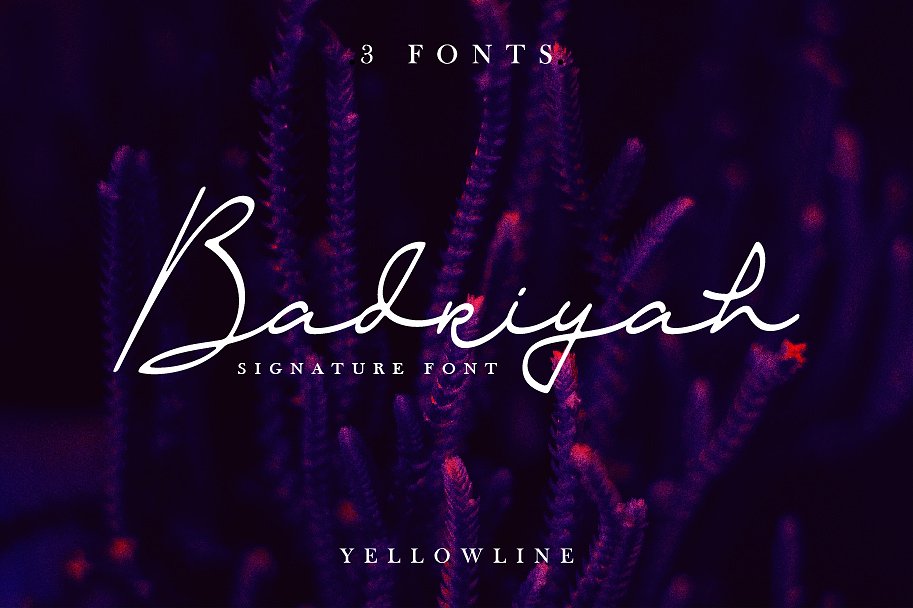
Badriyah Script
Badriyah Script Font
Introducing a new product called Badriyah. This font is simply, elegant and classy font. Badriyah has 3 font versions that you can choose as needed. Badriyah is perfect choice for your signature, fashion, e-commerce design, logo and more design projects.